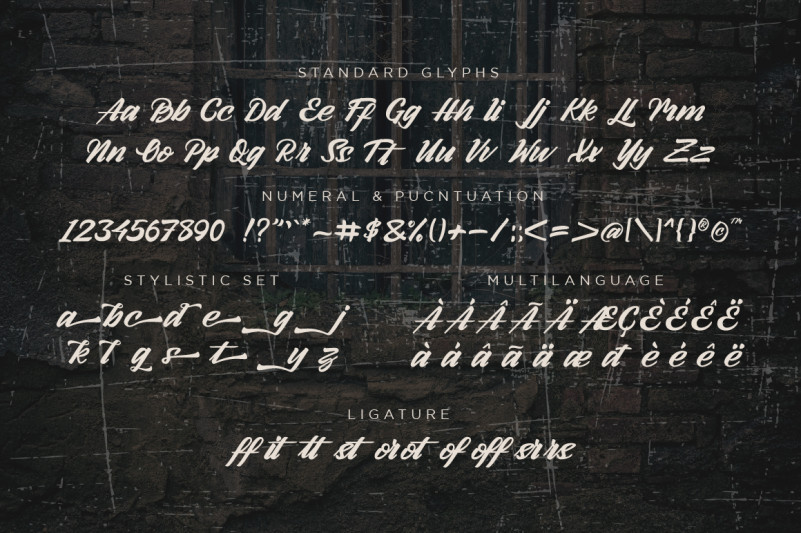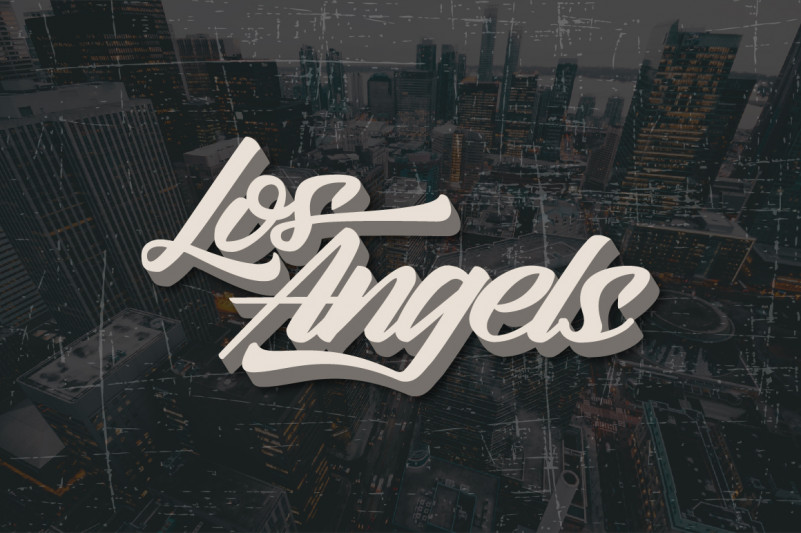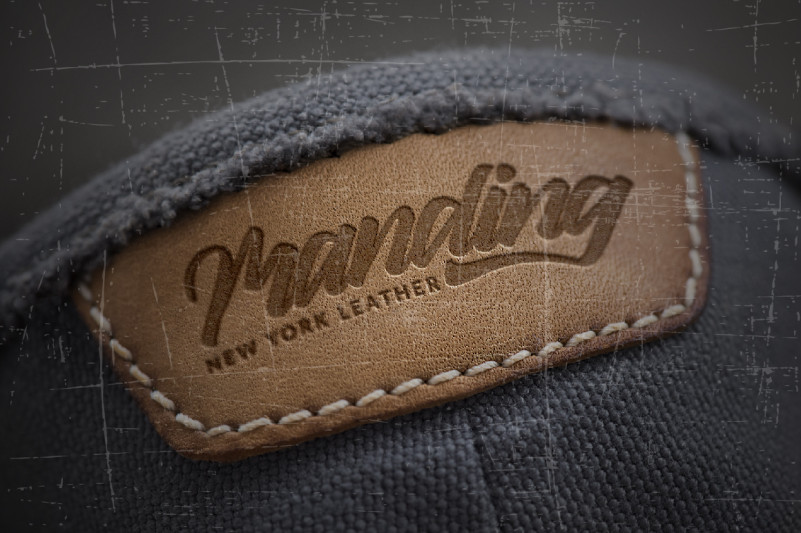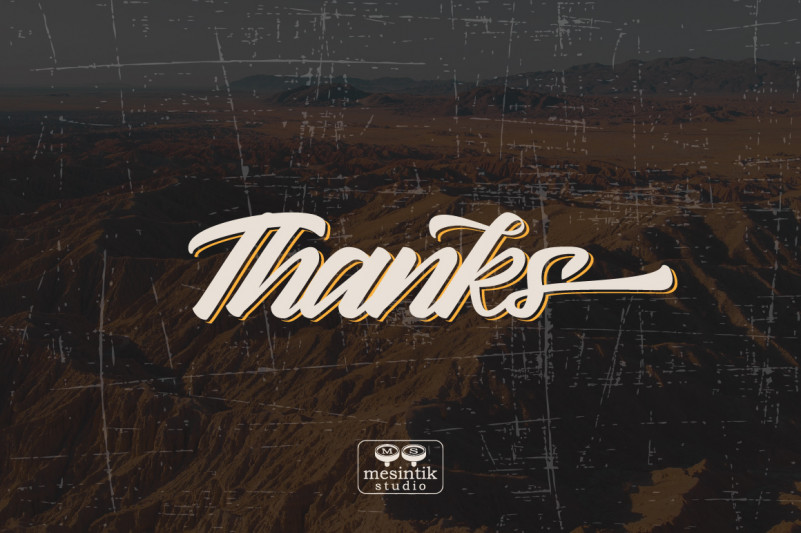
Arlen Script Font
Arlen Script is a clean script brush font. It’s great to use for book covers, logos, signatures, wedding designs, product packaging, special events, and many more!